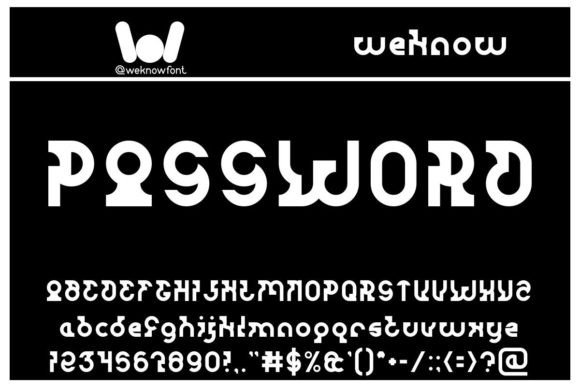
Indulge in the captivating allure of Password Font, a typographic masterpiece that unlocks the door to boundless creativity. Crafted with meticulous attention to detail, this brilliant display font emerges as the perfect choice for those seeking to leave an unforgettable mark on the digital realm.
Immerse yourself in the visual symphony of Password Font, where each character dances across the screen with graceful finesse. Its elegant curves and sharp angles intertwine seamlessly, captivating the eye and evoking a sense of sophistication. Whether you're crafting eye-catching logos, designing captivating posters, or creating dynamic websites, Password Font empowers you to elevate your creations to new heights.
Unlock the limitless potential of Password Font and watch your designs soar to new heights. Its versatility knows no bounds, allowing you to weave your creative magic across a myriad of mediums. From the vibrant world of social media to the printed page, Password Font effortlessly adapts, ensuring your message shines through with unparalleled clarity and style.
Immerse yourself in the vibrant world of Password Font and let your creativity run wild. Its enchanting allure and captivating presence will transform your designs into masterpieces that captivate audiences and leave an everlasting impression. Embrace the power of Password Font and embark on a typographic journey where imagination reigns supreme.